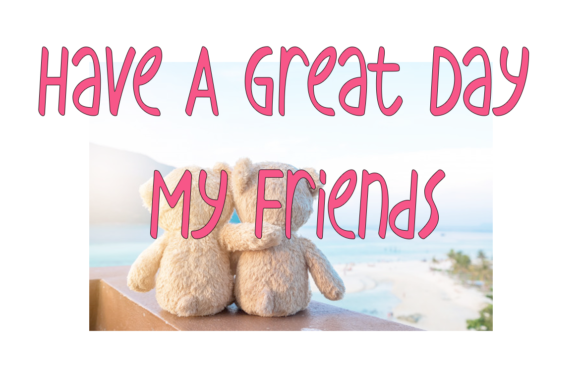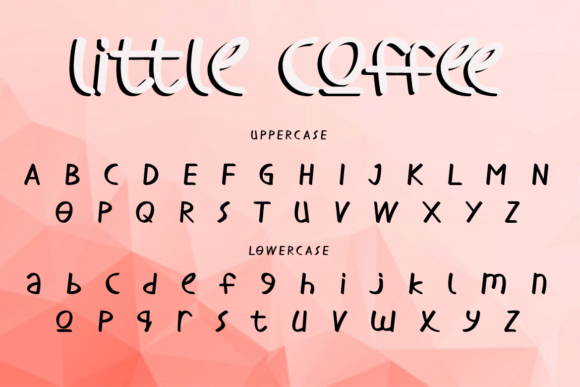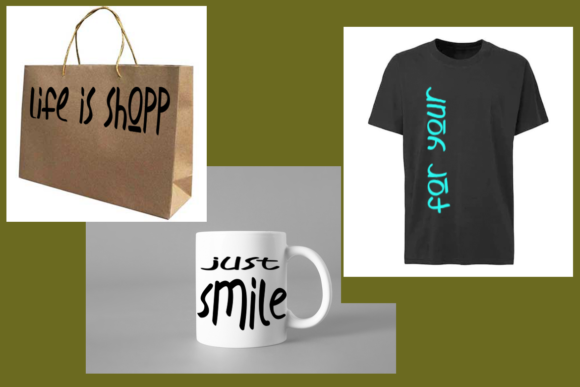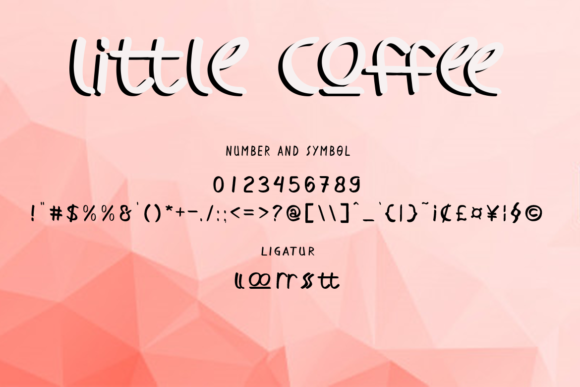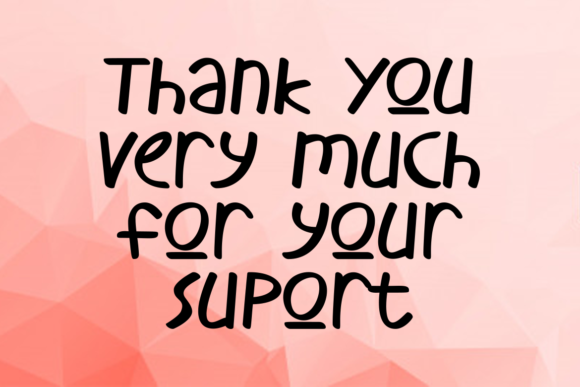
Introduction to Little Coffee Font
Do you remember that moment when you stumbled upon the perfect design element for your creative project? Maybe it was a font that captured the essence of your brand, or a background that made your text pop. For designers, finding the right resources can make all the difference between a mediocre and a stunning piece. That’s why we’re excited to introduce you to the Little Coffee Font, a sweet and friendly handwritten font that’s about to become your new best friend.
With its natural and unique style, the Little Coffee Font is the perfect addition to any design project. Whether you’re working on a logo, a poster, or a social media graphic, this high-quality font is sure to elevate your design. Plus, it’s free to download, making it an accessible design resource for designers of all levels. And the best part? The Little Coffee Font comes with a transparent background, giving you the flexibility to use it in a variety of creative ways.
Key Features of Little Coffee Font
- Unique, hand-drawn design with a transparent background for versatility
- Perfect for use in logos, branding materials, and other creative projects
Honest Review: Little Coffee Font
I recently stumbled upon the Little Coffee Font while searching for a free download to spice up my design project. As a designer, I’m always on the lookout for high-quality fonts that can elevate my creative work. The Little Coffee Font definitely fits the bill.
Here are some of the things that I think work well with this font:
- ✨ Unique and quirky design that adds a touch of personality to any project
- ✨ High-quality resolution that makes it perfect for printing or digital use
- ✨ Transparent background, making it easy to use with any color or design element
However, there are a few limitations that I want to mention:
- ⚠️ Limited character set, which may not be ideal for longer texts or complex design projects
- ⚠️ Not as versatile as some other fonts, which may limit its use in certain design scenarios
Overall, I think the Little Coffee Font is a great addition to any design resource collection. While it may have some limitations, its unique design and high-quality resolution make it a valuable asset for any creative project. If you’re looking for a font that can add a touch of whimsy to your design, the Little Coffee Font is definitely worth checking out.
Tips for Getting the Most Out of Little Coffee Font
Use Little Coffee Font in conjunction with other design elements to create a visually appealing design. Experiment with different font sizes, colors, and styles to add depth and interest to your creative project.
Little Coffee Font is ideal for use in various creative projects, including logos, business cards, and social media graphics. Its high-quality design and transparent background make it a versatile and effective design resource.
Alternatives to Little Coffee Font
Pacifico Font is a high-quality script font ideal for creative projects, such as wedding invitations and menus. It features a modern, elegant design and is available for free download. When to use: Pacifico Font is suitable for projects that require a sophisticated and stylish look.
Comparison to Little Coffee Font: Pacifico Font has a more elegant and refined design compared to Little Coffee Font, making it a better choice for formal events and high-end branding.
Great Vibes Font is a beautiful, handwritten font perfect for design projects that require a touch of personality. It features a transparent background and is available for free download. When to use: Great Vibes Font is ideal for creative projects, such as social media graphics and advertisements.
Comparison to Little Coffee Font: Great Vibes Font has a more playful and casual design compared to Little Coffee Font, making it a better choice for fun and creative projects.
Yes, the Little Coffee Font has a transparent background, making it ideal for use on images or backgrounds with a subtle texture or pattern. This feature adds an extra layer of versatility to the font’s design.
Q: Is Little Coffee Font suitable for high-quality design projects?
Yes, the Little Coffee Font is designed to be a high-quality design resource, making it suitable for a wide range of creative projects, from logos and branding to editorial and advertising design. Its clean and modern design ensures that it will look great in print and digital applications.